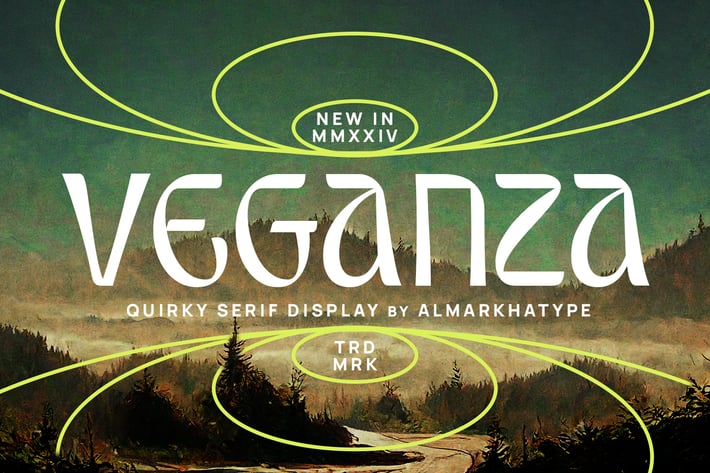
Veganza – Quirky Display Font
Introducing Veganza, a vibrant display typeface that channels the spirit of retro design with its playful curves and energetic personality. This font is your go-to choice if you’re looking to infuse your projects with a dash of character and nostalgia. Whether you’re creating posters, logos, headlines, or social media graphics, Veganza brings a sense of fun and flair to any design endeavor. Let Veganza breathe life into your projects!
+ Ligatures glyphs
+ Alternate glyphs
+ International Accent